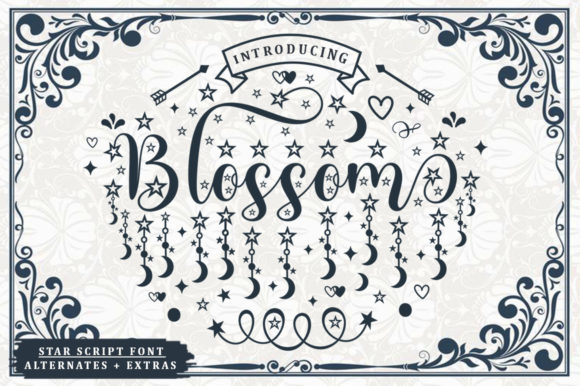
Blossom Font: Crafting Elegance for Your Creative Projects
A Typeface with Quiet Confidence
There’s a particular kind of script font that doesn’t shout for attention but still commands the room. Blossom Font is exactly that. It’s a delicate, flowing typeface that carries itself with a sense of understated elegance. The letterforms are carefully crafted with smooth curves and subtle details that give each character a hand-lettered quality without feeling overly casual or messy. This isn’t a font that tries to be edgy or experimental—it knows what it is and delivers that identity with consistency.
What makes Blossom stand out in a crowded market of script fonts is its balance. It feels personal and approachable, yet polished enough for professional applications. The strokes have a natural rhythm to them, almost like calligraphy that’s been refined for modern use. Each letter connects thoughtfully to the next, creating a visual flow that’s easy on the eyes. If you’ve ever struggled with script fonts that feel too loose or too tight, Blossom sits in that comfortable middle ground where readability meets aesthetic appeal.
Where Blossom Font Finds Its Place
Think about the projects where you need a touch of sophistication without sacrificing warmth. Blossom Font works beautifully in logo design for brands that want to convey approachability and care—think boutique bakeries, wedding planners, skincare lines, or artisanal product makers. It’s the kind of typeface that tells customers, “We pay attention to the details.” When used in packaging design, it elevates the perceived value of a product instantly. A candle label, a soap wrapper, or a gift box with Blossom lettering feels more intentional and premium.
In editorial design, Blossom can serve as a striking display font for magazine headlines, blog post titles, or chapter openings in self-published books. It pairs surprisingly well with clean serif fonts and modern sans serif fonts alike. For social media graphics, especially on platforms like Instagram and Pinterest, Blossom helps posts stand out in a feed. Quote graphics, promotional announcements, and story overlays benefit from its visual personality. It’s also worth considering for web design accents—think hero section callouts, special offer banners, or email newsletter headers where you want to grab attention without overwhelming the layout.
Beyond commercial use, Blossom Font is a favorite among crafters and hobbyists. If you create custom invitations, greeting cards, or printable art, this script font adds that handmade feel people love. It’s PUA encoded, which means every glyph and ligature is accessible without needing advanced design software. That accessibility makes it practical for anyone working in Cricut Design Space, Silhouette Studio, or even basic word processors. You’re not limited to the standard character set—you can explore swashes, alternates, and decorative elements that make your designs feel unique.
How the Right Font Shapes Perception
Fonts do more than display words. They carry emotional weight. When someone sees Blossom Font on a brand’s materials, their brain makes instant associations. The flowing, organic letterforms suggest creativity, care, and authenticity. For a small business owner or entrepreneur, choosing a script font like Blossom isn’t just an aesthetic decision—it’s a strategic one. The typeface becomes part of your brand identity, influencing how customers perceive your professionalism and attention to quality.
Visual hierarchy is another area where thoughtful font choices matter. Using Blossom for headlines or accent text while pairing it with a straightforward body font creates a clear reading path. The eye knows where to land first and what information follows. This kind of hierarchy improves engagement because people can quickly scan content and find what matters to them. In marketing materials—whether it’s a flyer, a landing page, or a product catalog—that clarity can directly impact conversion rates.
Practical Tips for Working with Blossom
Before committing Blossom Font to a project, test it in context. Set your actual text, not just the alphabet, and see how it reads at the size you’ll use. Script fonts behave differently at small sizes compared to large display settings. Blossom holds up well at moderate sizes, but for body copy or dense paragraphs, you’ll want to reserve it for headings and short phrases. Pair it with a neutral serif font like Georgia or a geometric sans serif like Montserrat to create contrast that keeps designs balanced.
Review the full character set before starting. Blossom includes ligatures and alternate glyphs that can transform the look of your text. Swashes on capital letters add flourish to monograms or initials. Understanding what’s available helps you make the most of the font rather than settling for default settings. If you’re using it for client work or commercial products, confirm the licensing terms. Blossom is a premium font, and its commercial license typically covers a wide range of uses, but it’s always smart to double-check coverage for your specific application.
Finally, don’t underestimate the power of testing font pairings. Put Blossom next to a few different options and see which combination feels right for your project’s personality. A bold sans serif can ground the delicacy of Blossom, while a classic serif can complement its elegance. The best pairings feel natural, not forced. When everything clicks, the result is a cohesive design that feels intentional from the first glance to the last detail.
For content creators and bloggers, Blossom can become a signature element. Your audience learns to expect that particular visual tone, and it becomes part of your creative voice. Whether you’re designing a lead magnet, updating your website, or creating a new product line, having a go-to display font that reflects your brand’s personality saves time and strengthens your overall presence. Blossom Font isn’t just a design asset—it’s a tool for building something that feels authentically yours.